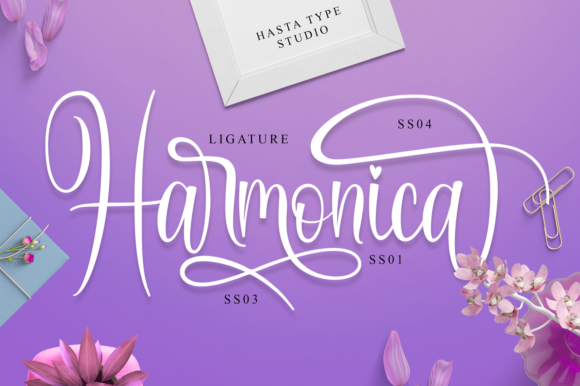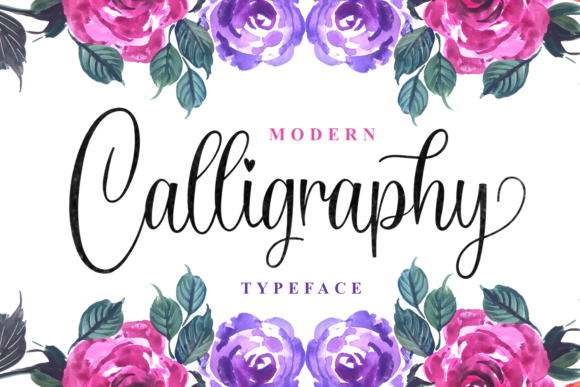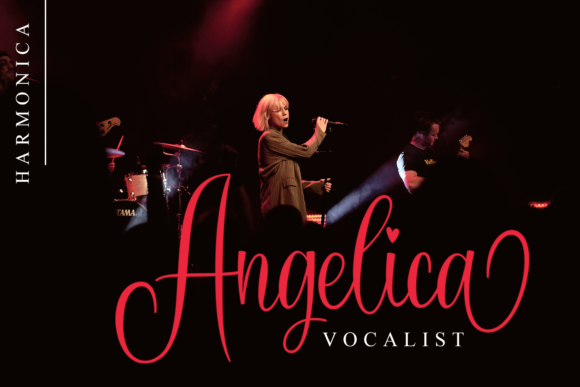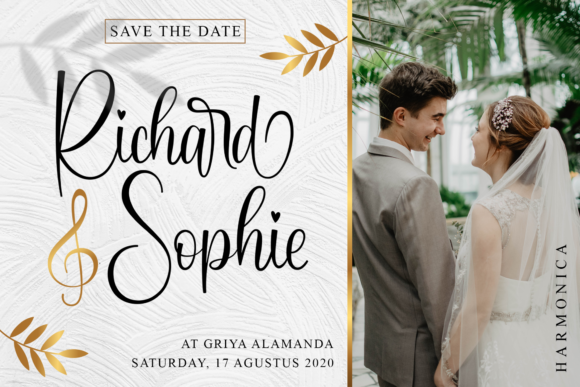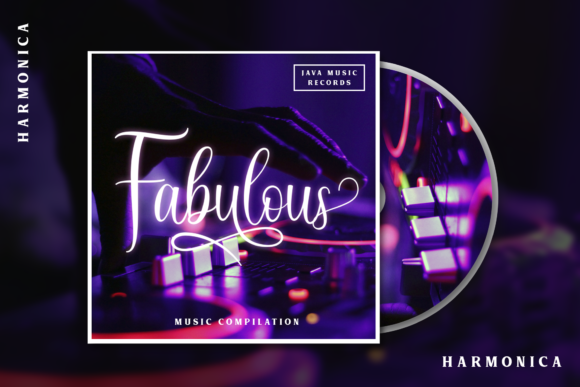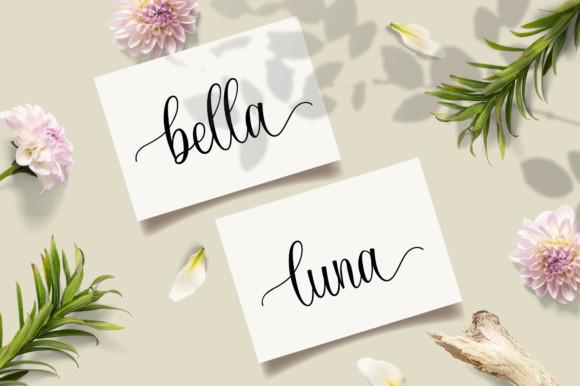
Introducing Harmonica Font: Elevate Your Design with a Unique Typographic Style
In the world of typography, few fonts manage to strike a balance between classic elegance and modern flair. Harmonica Font is one such exceptional typeface that draws inspiration from traditional typography while infusing it with a distinctive style. This versatile script font is perfect for designers and crafters looking to add a touch of sophistication and personality to their projects. Whether you’re working on headlines, body text, or anything in between, Harmonica is sure to make a lasting impression.
The Inspiration Behind Harmonica
Harmonica’s design roots lie in classic typography, where the emphasis is on readability, elegance, and timeless appeal. However, the creators of Harmonica have skillfully blended these traditional elements with a unique stylistic approach, setting it apart from more conventional fonts. The result is a typeface that feels both nostalgic and refreshingly modern.
Key Features of Harmonica Font
- Versatility: Harmonica shines in its adaptability. It’s designed to perform exceptionally well across various design projects, from digital websites and mobile applications to print materials like brochures, posters, and business cards.
- Headline and Body Text: One of the standout features of Harmonica is its suitability for both headlines of all sizes and blocks of text. Its clear legibility and flowing script make it an excellent choice for titles that demand attention, while its readability ensures that longer passages of text remain engaging.
- Variations: Harmonica accommodates maximum and minimum variations with ease, allowing designers to play with different weights and styles to create visual hierarchies and emphasize key points.
- Cross-Media Compatibility: Whether your project involves web design, print, motion graphics, or any other medium, Harmonica maintains its aesthetic appeal. Its flexibility across different platforms and applications makes it an invaluable asset in a designer’s toolkit.
Why Choose Harmonica for Your Design Projects?
Choosing a font for a design project can be a daunting task, given the vast array of options available. However, Harmonica stands out for several compelling reasons:
- Unique Style: In a sea of commonly used fonts, Harmonica offers a breath of fresh air with its unique blend of classic and contemporary styles.
- Ease of Use: Harmonica’s versatility means you can use it across a wide range of projects without needing multiple fonts, streamlining your design process.
- Impact and Readability: It strikes an excellent balance between making a visual impact and maintaining readability, which is crucial for effective communication.
Tips for Using Harmonica Effectively
To make the most out of Harmonica Font, consider the following tips:
- Mix and Match: Don’t be afraid to experiment with different weights and styles of Harmonica to create visual contrast and hierarchy in your designs.
- Pair Thoughtfully: When pairing Harmonica with other fonts, choose ones that complement its script style. A clean sans-serif or serif font can provide a nice contrast.
- Consider Context: Think about the context in which your design will be viewed. Harmonica’s elegance shines in both digital and print formats, but ensure it’s scaled appropriately for legibility across different devices and sizes.
| Author | IklazStudio |
Harmonica Font is more than just a typeface; it’s a design statement. Its unique blend of classic inspiration and modern style, combined with its versatility and readability, makes it an excellent choice for designers and crafters looking to elevate their projects. Whether you’re working on a high-impact headline or a lengthy passage of text, Harmonica brings a level of sophistication and flair that’s hard to match. By incorporating Harmonica into your typography arsenal, you’re not just choosing a font – you’re choosing a way to connect with your audience and make your designs truly memorable.